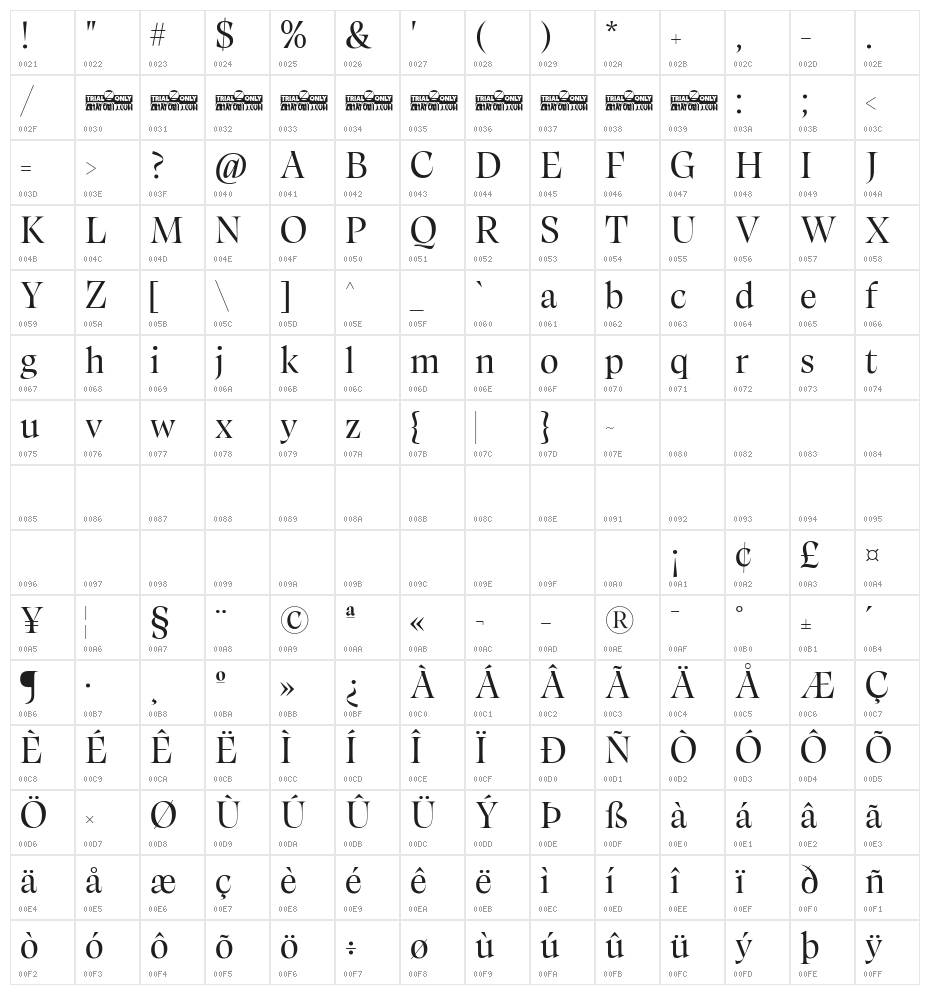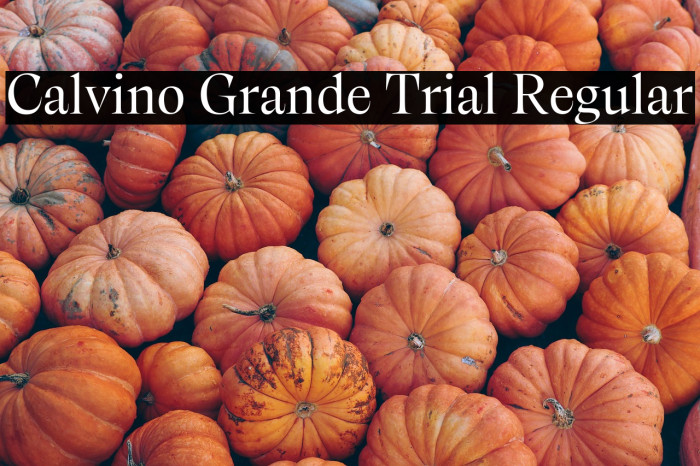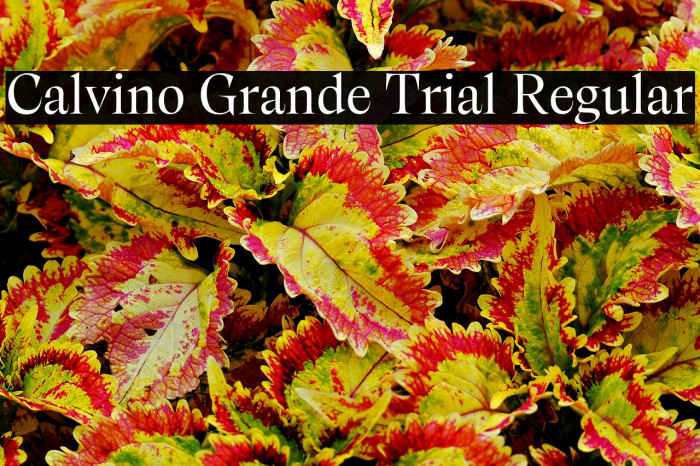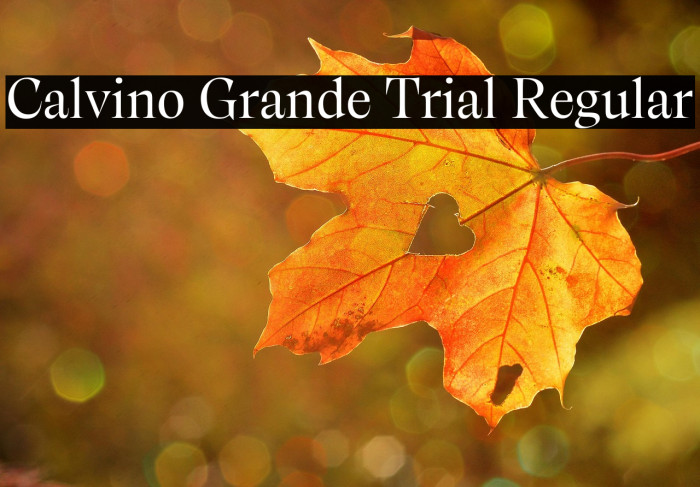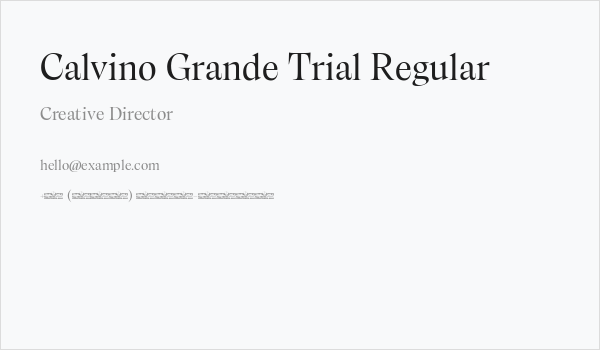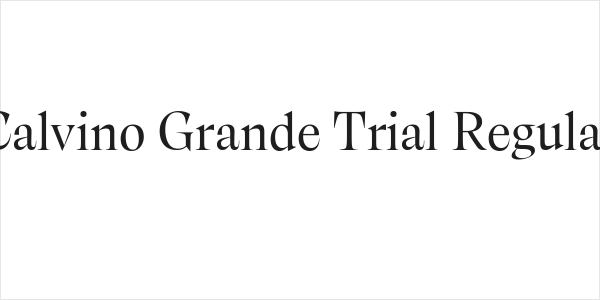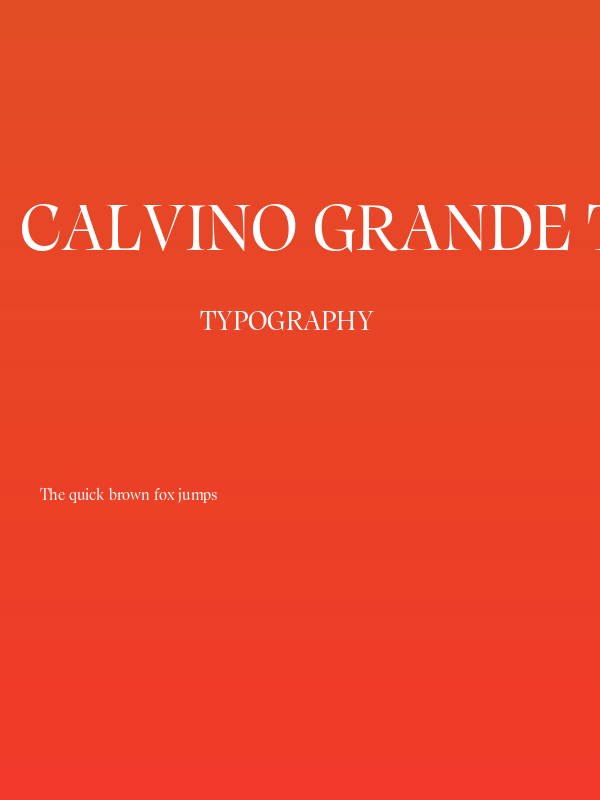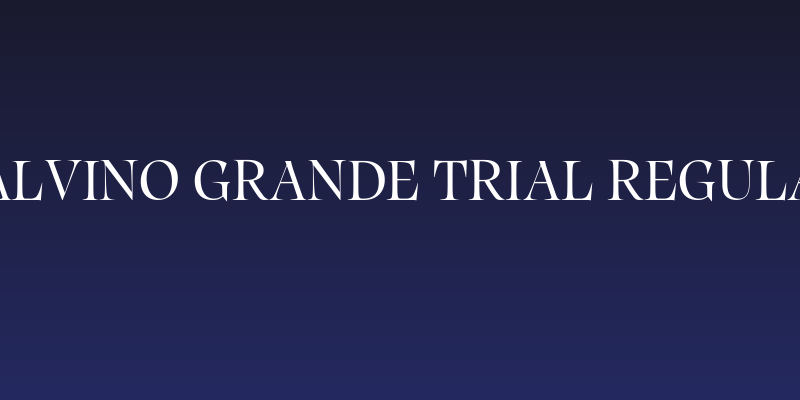
Calvino Grande Trial Regular Font
Calvino Grande Trial Regular Description
This font exudes a classic elegance with its refined serif design. The characters are well-proportioned, featuring a harmonious balance between thick and thin strokes, which adds a sophisticated touch. The uppercase letters are stately and commanding, while the lowercase letters maintain a graceful flow. The numerals are clear and distinct, ensuring readability. Special characters are thoughtfully designed, complementing the overall aesthetic. This font is versatile, suitable for both formal and creative applications, offering a timeless appeal that enhances any project.
Overall StyleClassic
Proposed ProjectsIdeal for book covers, editorial design, branding, and formal invitations.